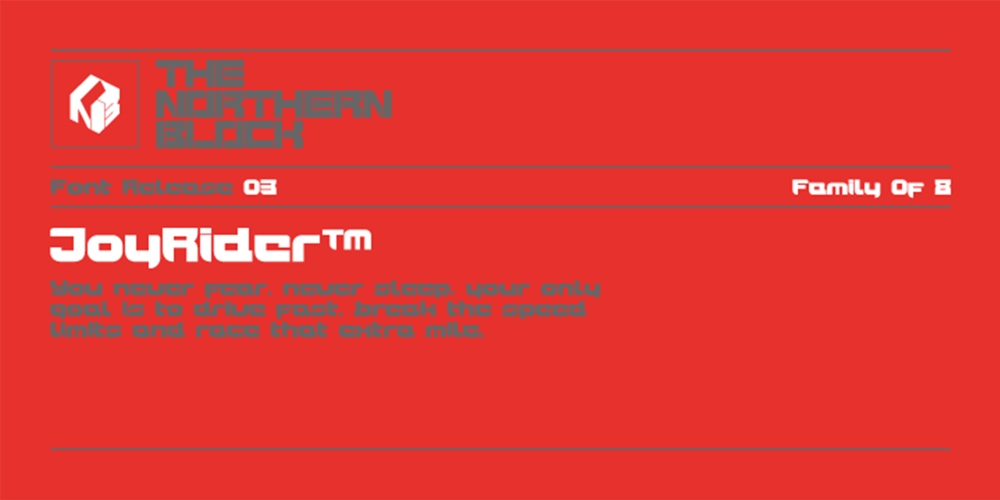
JoyRider Font Family was designed by Jonathan Hill and published by The Northern Block. JoyRider contains 8 styles and family package options. JoyRider is an 8-font family consisting of 4 weights with italics. Its bold appearance is strongly influenced by motor racing and the fast car modification culture, hence the name JoyRider.